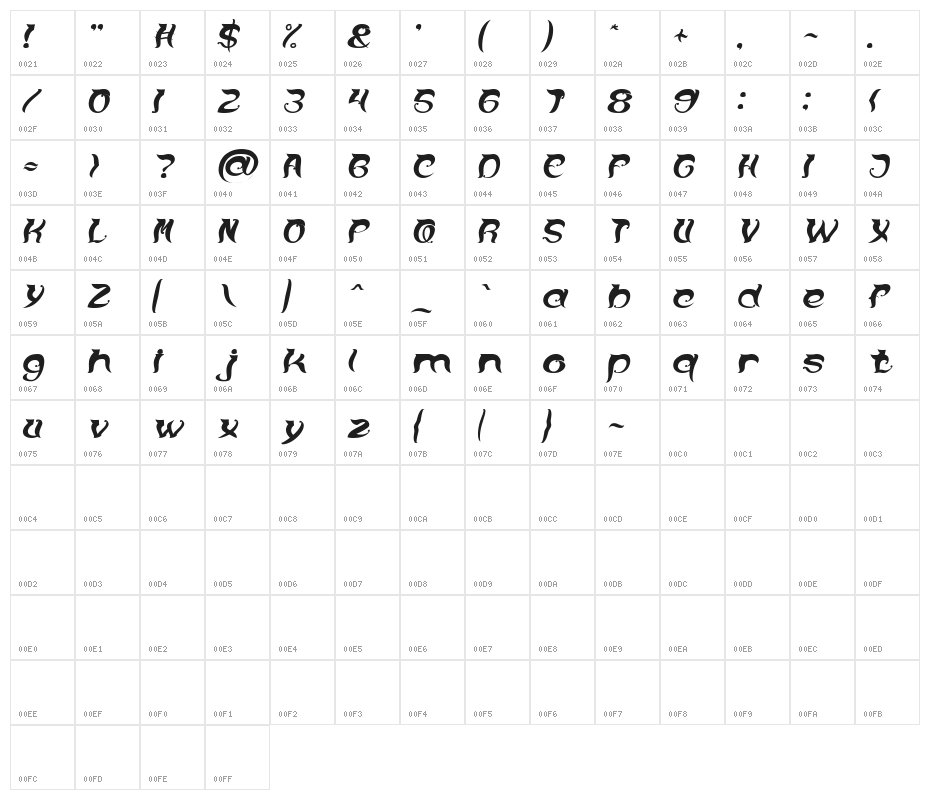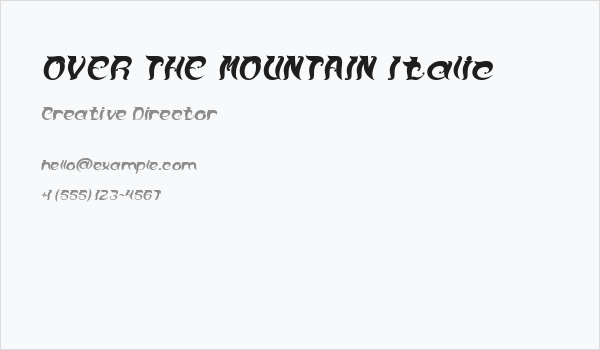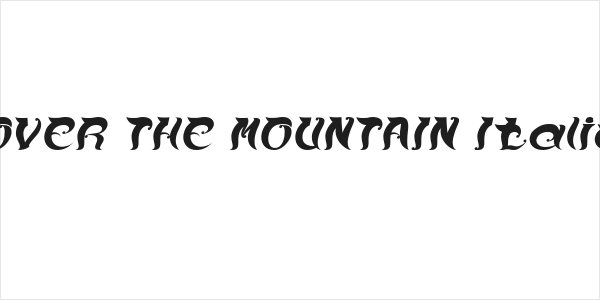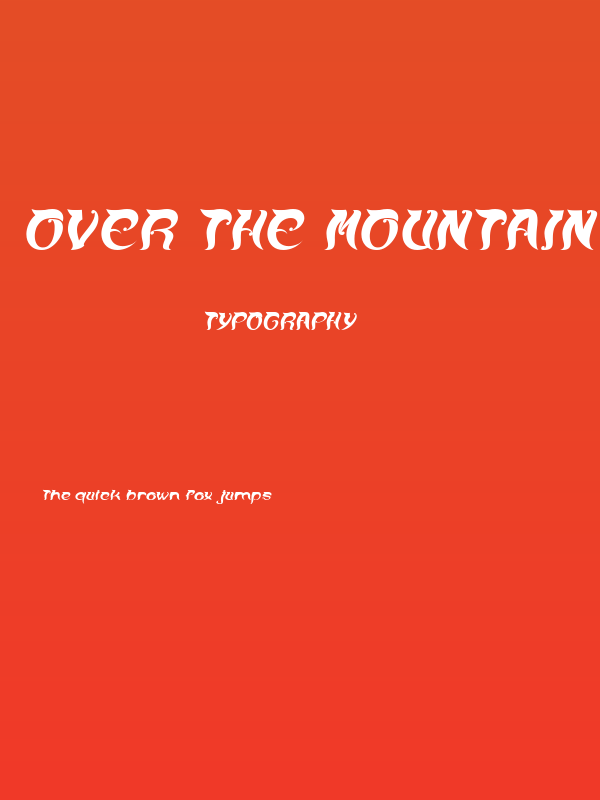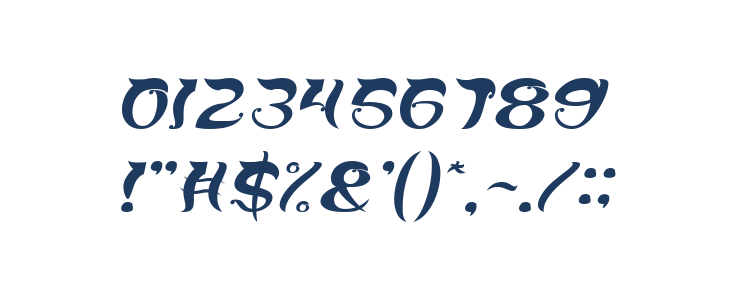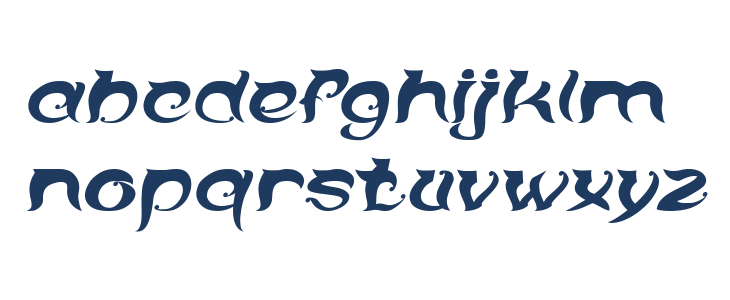
OVER THE MOUNTAIN Italic Font
OVER THE MOUNTAIN Italic Description
This font features a bold and dramatic style with a distinct italic slant, giving it a dynamic and energetic appearance. The characters are characterized by sharp, pointed serifs and exaggerated curves, creating a sense of movement and flair. The uppercase letters are particularly striking, with unique flourishes that add to the font's decorative nature. The lowercase letters maintain the same boldness and style, ensuring consistency across the typeface. Numbers and special characters are equally stylized, making them suitable for attention-grabbing designs. This font's overall appearance is both artistic and bold, making it ideal for projects that require a strong visual impact.